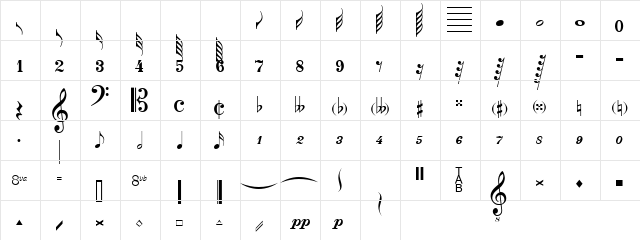
SPW Normal Font Preview
SPW Normal
Design Context for SPW Typeface
SPW is a composed and adaptable typeface that performs quietly and consistently across a wide range of design contexts.
Pro Tip: Use SPW in both headline and body roles to test its range before committing to a single application.